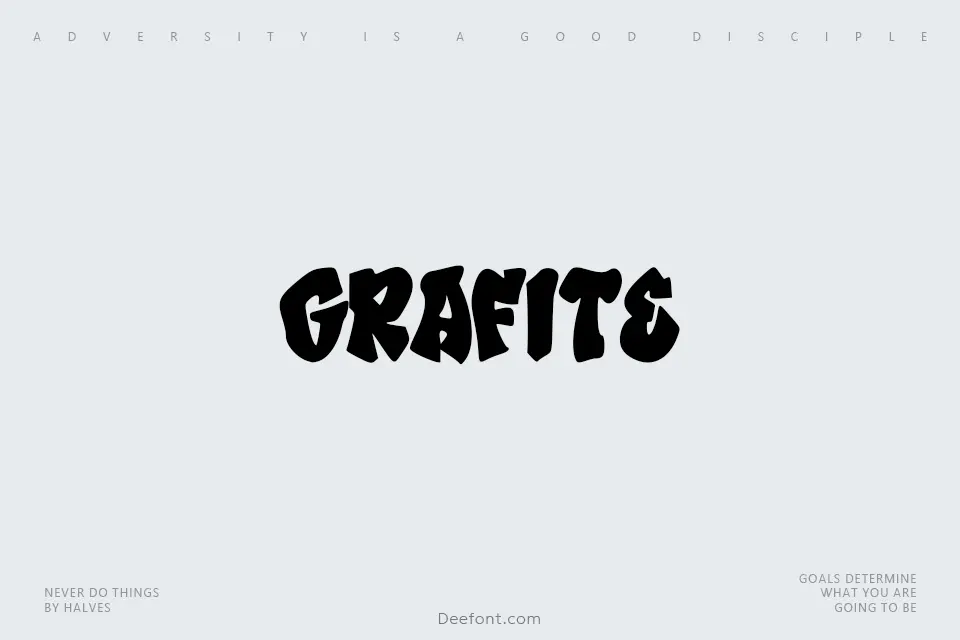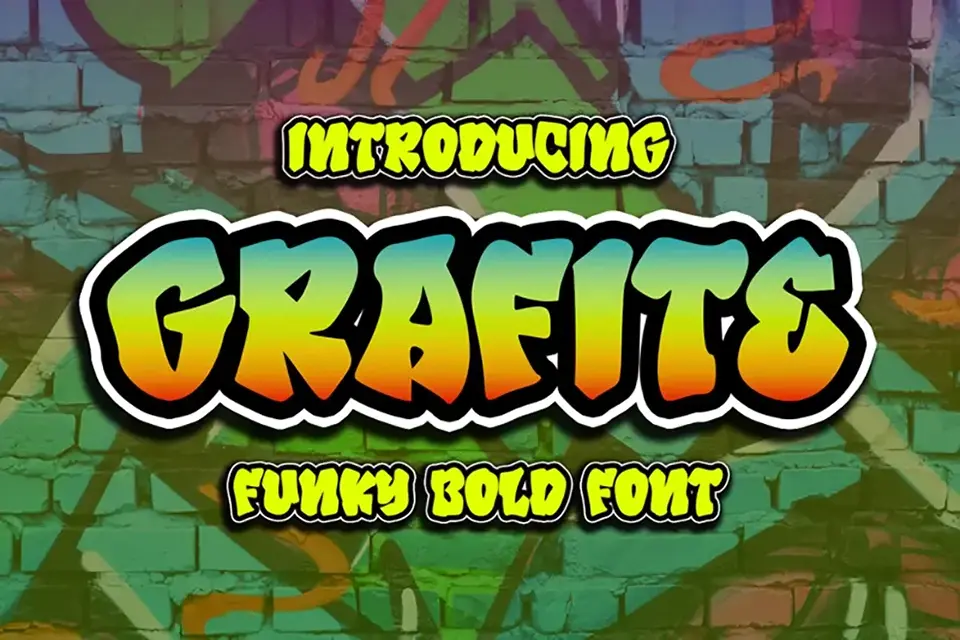
Grafite Font
The Grafite font by Abo Daniel Studio is a funky, bold script typeface inspired by graffiti styles. With its playful, dynamic letterforms, Grafite brings an urban and energetic feel, making it ideal for eye-catching logos, poster headlines, branding, and creative projects that aim to stand out. Easy to use for personal designs, it encourages creativity and a sense of fun in your text layouts. Commercial use requires the appropriate license. Let your creativity flow with this standout script font that adds a touch of street art flair to any visual identity.